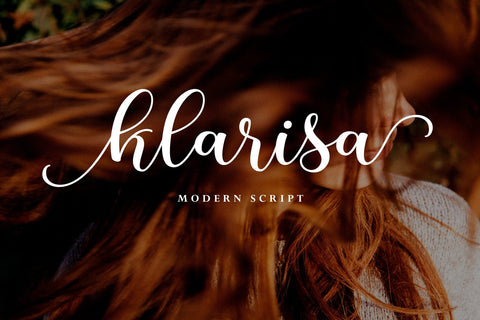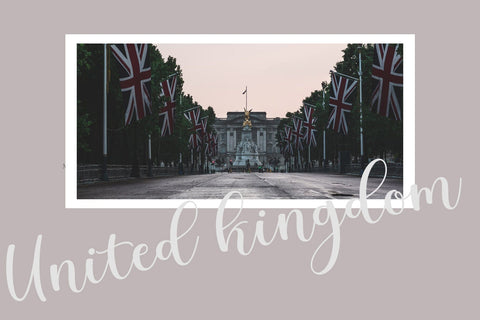
Klarisa Script
This is a new modern calligraphy font in casual and simple style. With a style like this, this font will be suitable in use for logo's, branding projects, homeware designs, product packaging, mugs, quotes, posters, shopping bags, logo's, t-shirts, book covers, name card, invitation cards, greeting cards, and all your other lovely projects.